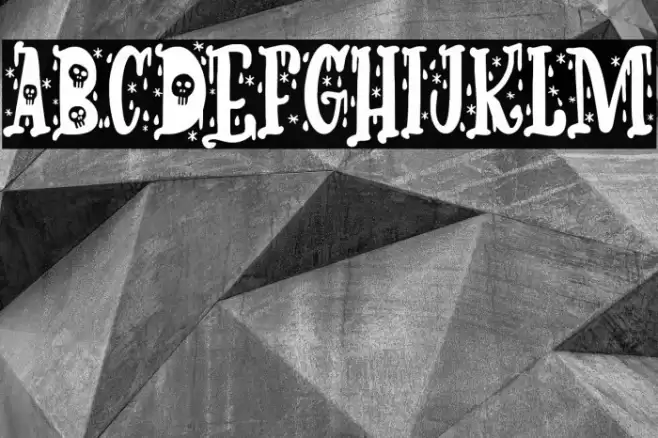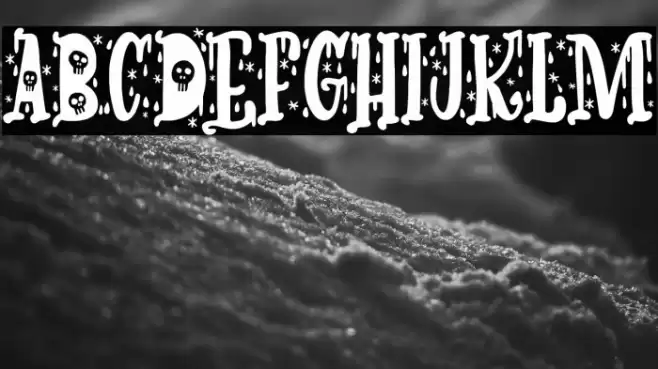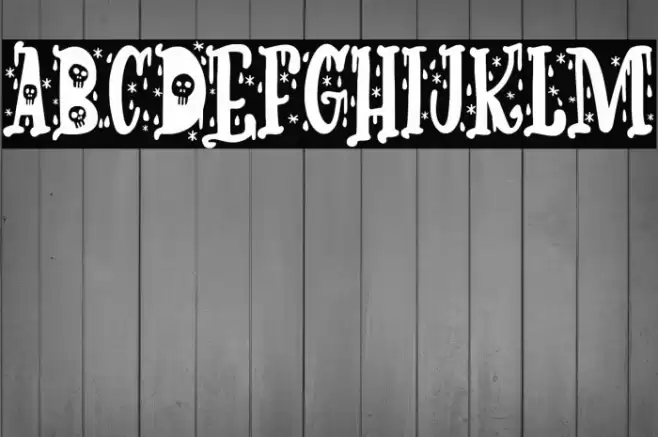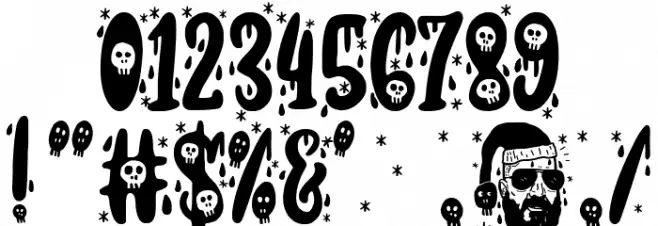
Bad Santa Company Font
Bad Santa Company Description
This font is a bold and playful decorative style that features unique elements such as skulls and stars integrated into the characters. The uppercase and lowercase letters are designed with a whimsical flair, making them stand out with their bold, thick strokes and creative embellishments. The numbers and special characters continue this theme, offering a cohesive look across the entire set. The font's distinct personality makes it ideal for projects that require a fun and edgy aesthetic, such as holiday-themed designs or alternative branding materials.
A bold, decorative font with playful skull and star embellishments from Uncategorized fonts.
- Font: Bad Santa Company
- Proposed Projects: Ideal for Halloween-themed designs, edgy branding, party invitations, and alternative music posters.